The right font can impress or disappoint the people viewing your presentation. It’s more than just a design choice; the font decides how your audience reads, feels, and remembers your message. A poorly chosen font can distract your audience, confuse them, and even make your slides look unprofessional. In contrast, the best fonts for presentations create a smooth flow of information, helping your ideas stand out effortlessly.
Readability, tone, and professionalism all come down to the way the information is written. A well-balanced font improves comprehension and conveys your message with confidence, whether you’re an educator simplifying concepts, a marketer pitching a new campaign, or a student presenting research. Let’s explore the 30 best fonts for presentation slides that combine clarity, style, and impact.
Best Fonts for Presentation Slides
The best fonts for presentation slides are generally clear, sans-serif fonts like Arial, Calibri, Helvetica, and Lato for their readability on screens. For a more formal or modern look, consider serif fonts like Georgia or Palatino, or modern sans-serif options like Montserrat and Roboto.
| Font | Typeface | Styles | Languages supported | About |
| Arial | Sans-serif | 2 | 67 | Humanist sans; softer curves and diagonal terminals; widely used for reports, presentations, display. |
| Calibri | Sans-serif | 2 | 67 | Default MS typeface era; balanced spacing; professional tone. Calibri is a versatile font best used for professional documents, educational materials, digital signage, and personal use. It has a clean and modern design, coupled with excellent readability. |
| Helvetica | Sans-serif | 8 | 37 | Clear, modern classic; Helvetica is a widely used sans-serif typeface known for its clean, simple, and modern appearance, making it a popular choice for various design projects, including signage, branding, advertising, |
| Verdana | Sans-serif | 4 | 69 | Screen-friendly spacing; designed for on-screen clarity. |
| Roboto | Sans-serif (Variable available) | 2 | 71 | Very common digital font; variable. While some grotesks distort their letterforms to force a rigid rhythm, Roboto doesn’t compromise, allowing letters to be settled into their natural width. This makes for a more natural reading. |
| Open Sans | Sans-serif | 2 | 73 | Optimized for print, web, and mobile interfaces, offers excellent legibility and letterforms. |
| Lato | Sans-serif | 18 | 79 | Classic proportions, especially noticeable in the uppercase. semi-circular details of the letters give Lato a sense of warmth, while the solid structure provides stability and seriousness. |
| Montserrat | Sans-serif | 18 | 73 | Inspired by Buenos Aires signage, widely used, open-source. |
| Inter | Sans-serif (variable) | 19 | 79 | Carefully crafted & designed for computer screens. Inter features a tall x-height to aid in the readability of mixed-case and lower-case text. |
| Noto Sans | Sans-serif | 4 | 82 | a family of sans-serif typefaces consisting of over 100 independent fonts designed for all scripts represented in the Unicode system. |
| Fira Sans | Sans-serif | 18 | 79 | The Fira typeface was developed for integration with the Mozilla FirefoxOS operating system and was designed to improve readability on mobile phones with varying screen quality and rendering. |
| Source Sans Pro | Sans-serif | 12 | 73 | Known for its clean and modern design, it is a versatile font that can be used for a variety of purposes. Its design features make it a great choice for web and print projects, such as logos, headlines, and body text. |
| Avenir (tag page) | Sans-serif | 22 | More than 150 | Celebrated for its clean, modern look, Avenir blends precise geometric forms with organic curves, making it highly versatile for both display and body text. |
| Tahoma | Sans-serif | 1 | 87 | While similar to Verdana, Tahoma has a narrower body, smaller counters, much tighter letter spacing, and a more complete Unicode character set. |
| Trebuchet MS | Sans-serif | 1 | 66 | Trebuchet is well-suited for use in extended texts, User Interface scenarios, and spreadsheet design, given the font’s narrow letterforms. Trebuchet works brilliantly on the screen and has become a classic choice for Web page design. |
| Raleway | Sans-serif (Variable) | 20 | 73 | Elegant geometric sans; expanded family over time. aims for a minimalist aesthetic and clean look and can be used in commercial and non-commercial use. |
| Nunito | Sans-serif | 14 | 74 | known for its smooth, rounded design and variety of weights. It offers a modern look that works well in different media |
| Quicksand | Sans-serif | 5 | 63 | Quicksand is a sans serif font that has become a popular choice for designers everywhere due to its friendly and approachable look. These features make it a versatile option for both display and small text. It is suitable for everything from websites to print materials |
| Poppins | Sans-serif | 20 | 57 | It is a geometric sans serif font, with influences from both humanist and grotesque typefaces. Its design features include slightly rounded corners, a tall x-height, and an open aperture. The font is known for its legibility and versatility, making it suitable for a wide range of projects. |
| League Spartan | Sans-serif | 1 | 50 | Focusses on clean lines and geometric shapes, the font achieves a timeless quality. This approach makes League Spartan a reliable choice for projects demanding a strong visual presence without unnecessary embellishments. |
| Archivo Black | Sans-serif | 1 | 59 | Designed to be used simultaneously in print and digital platforms. The technical and aesthetic characteristics of the font are both crafted for high-performance typography. |
| Playfair Display | Serif | 2 | 68 | High-contrast serif for elegant headings; |
| Libre Baskerville | Serif | 3 | 61 | The font can be used in commercial and non-commercial use. It is web-optimized |
| Lora | Serif (Variable) | 2 | 68 | Modern text serif with calligraphic roots; optimized for screen/print. |
| Merriweather | Serif | 8 | 72 | High x-height; designed for comfortable reading on screens; has matching Sans. |
| Georgia | Serif | 4 | 67 | Screen-oriented transitional serif; The Georgia typeface is similar to Times New Roman, its bold is also unusually bold, almost black. It was designed for clarity on a computer monitor, even at small sizes |
| Franklin Gothic (Demi) | Sans-serif | 1 | 66 | Bold and classic Franklin Gothic has been used in many advertisements and headlines in newspapers. The typeface continues to maintain a high profile, appearing in a variety of media from books to billboards. |
| Dosis | Sans-serif (Variable) | 1 | 59 | Rounded, minimalist sans; open-source. known for its rounded corners and geometric design. The style is warm and approachable, which makes it a favorite in creative projects |
| Muli | Serif | 10 | 59 | Lightweight, neutral sans; open-source licensing. Designed mainly for use as a display font, but is usable as a text font too. |
| Baskerville | Serif | 5 | 39 | Compared to earlier designs popular in Britain, Baskerville increased the contrast between thick and thin strokes, making the serifs sharper and more tapered, and shifted the axis of rounded letters to a more vertical position. The curved strokes are more circular in shape. |
-
Arial
Intro: Arial is a universally recognized sans-serif font that delivers simplicity and clarity across digital and printed platforms.
Why it’s among the best fonts for presentations:
- Extremely legible at any size, making it perfect for text-heavy slides.
- Widely supported across all operating systems and devices.
- Maintains a professional yet approachable tone.
Typeface: Sans-serif
-
Calibri
Intro: Designed for Microsoft, Calibri replaced Times New Roman as the Office default for over a decade, known for its warm, modern appearance.
Why it’s among the best fonts for presentations:
- Balanced letter spacing improves on-screen readability.
- Versatile and works well in professional and educational decks.
- Provides a clean look that keeps slides neat and cohesive.
Typeface: Sans-serif
-
Helvetica
Intro: Helvetica is one of the most famous sans-serif fonts, celebrated for its minimalism and modernity.
Why it’s among the best fonts for presentations:
- Highly readable even at small text sizes.
- Clean lines give slides a timeless, professional feel.
- Works exceptionally well for branding or formal presentations.
Typeface: Sans-serif
-
Verdana
Intro: Designed by Matthew Carter for on-screen use, Verdana offers excellent clarity on monitors and projectors.
Why it’s among the best fonts for presentations:
- Wide letter spacing enhances visibility from a distance.
- Works well for long paragraphs or detailed slides.
- Optimized for digital screens, ensuring crisp edges.
Typeface: Sans-serif
-
Roboto
Intro: Roboto, Google’s signature font, combines mechanical structure with open, friendly curves.
Why it’s among the best fonts for presentations:
- Designed for natural reading flow across digital devices.
- Pairs well with multiple modern fonts like Poppins or Open Sans.
- Offers geometric precision without feeling rigid.
Typeface: Sans-serif (Variable)
-
Open Sans
Intro: Created for easy readability on web and mobile interfaces, Open Sans is a balanced, humanist typeface.
Why it’s among the best fonts for presentations:
- Offers excellent legibility even with dense content.
- Works seamlessly across digital platforms.
- Neutral tone complements both casual and corporate designs.
Typeface: Sans-serif
-
Lato
Intro: Designed by Łukasz Dziedzic, Lato bridges professionalism and warmth through subtle, rounded details.
Why it’s among the best fonts for presentations:
- Maintains visual balance for large chunks of text.
- Works for academic and marketing slides alike.
- Offers multiple weights for a clear hierarchy.
Typeface: Sans-serif
-
Montserrat
Intro: Inspired by urban typography from Buenos Aires, Montserrat is known for its bold, geometric form.
Why it’s among the best fonts for presentations:
- Perfect for headings and large titles.
- Modern, versatile, and ideal for minimal slide designs.
- Highly readable even in bold weights.
Typeface: Sans-serif
-
Inter
Intro: Designed for digital environments, Inter is optimized for screen legibility with a tall x-height.
Why it’s among the best fonts for presentations:
- Extremely clear on monitors and projectors.
- Excellent for data or text-heavy educational slides.
- Works well for body text in modern, flat designs.
Typeface: Sans-serif (Variable)
-
Noto Sans
Intro: Part of Google’s global Noto font family, designed to support over 100 languages.
Why it’s among the best fonts for presentations:
- Ensures uniform typography in multilingual slides.
- Consistent line height and character clarity.
- Ideal for global classrooms or international businesses.
Typeface: Sans-serif
-
Fira Sans
Intro: Developed for Mozilla, Fira Sans focuses on screen readability and clean user interface presentation.
Why it’s among the best fonts for presentations:
- Optimized for different screen resolutions.
- Retains legibility in data charts or bullet-heavy decks.
- Balanced style suits both tech and education slides.
Typeface: Sans-serif
-
Source Sans Pro
Intro: Adobe’s first open-source typeface, Source Sans Pro, combines elegance with utility.
Why it’s among the best fonts for presentations:
- Works equally well for headings and paragraphs.
- Keeps text compact and readable for longer decks.
- Great for consistent branding across digital materials.
Typeface: Sans-serif
-
Avenir
Intro: Created by Adrian Frutiger, Avenir is known for its timeless geometry and humanist warmth.
Why it’s among the best fonts for presentations:
- Creates a polished, contemporary look.
- Easy to pair with serif fonts for contrast.
- Great for corporate and creative decks alike.
Typeface: Sans-serif
-
Tahoma
Intro: Designed by Matthew Carter, Tahoma is a reliable system font with tight letter spacing.
Why it’s among the best fonts for presentations:
- Perfect for compact slides or tables.
- Excellent clarity across all screen types.
- Professional yet unobtrusive tone.
Typeface: Sans-serif
-
Trebuchet MS
Intro: A Microsoft classic, Trebuchet MS is known for its friendly, readable design.
Why it’s among the best fonts for presentations:
- Works brilliantly for both headers and body text.
- Easy to read in UI and long text blocks.
- Adds subtle character without losing formality.
Typeface: Sans-serif
-
Raleway
Intro: Raleway is a sleek, modern sans-serif font ideal for striking titles.
Why it’s among the best fonts for presentations:
- Delivers a minimalist aesthetic perfect for creative decks.
- Lightweight structure keeps slides airy.
- Ideal for professional and non-commercial use.
Typeface: Sans-serif (Variable)
-
Nunito
Intro: Nunito’s smooth, rounded forms give it a welcoming, modern personality.
Why it’s among the best fonts for presentations:
- Balances friendly curves with high readability.
- Great for health, education, or non-profit themes.
- Works across different devices seamlessly.
Typeface: Sans-serif
-
Quicksand
Intro: A geometric sans-serif font known for its friendly, open shapes.
Why it’s among the best fonts for presentations:
- Clean structure enhances short headings.
- Adds warmth and approachability to slides.
- Perfect for design, youth, or event decks.
Typeface: Sans-serif
-
Poppins
Intro: A geometric sans-serif font with humanist influences and slightly rounded edges.
Why it’s among the best fonts for presentations:
- Maintains legibility across headings and paragraphs.
- Balanced proportions enhance presentation hierarchy.
- Excellent choice for marketing and startup decks.
Typeface: Sans-serif
-
League Spartan
Intro: League Spartan is a bold, geometric sans-serif known for its powerful presence.
Why it’s among the best fonts for presentations:
- Dominates attention on title slides.
- Clean lines project strength and professionalism.
- Great for business or product launch decks.
Typeface: Sans-serif
-
Archivo Black
Intro: A bold, high-performance sans-serif font designed for both print and digital media.
Why it’s among the best fonts for presentations:
- Excellent for impactful headings or data visuals.
- Maintains clarity even at large sizes.
- Versatile for advertising and educational use.
Typeface: Sans-serif
-
Playfair Display
Intro: A transitional serif font known for its elegant, high-contrast design.
Why it’s among the best fonts for presentations:
- Adds a refined, premium look to headings.
- Ideal for artistic or academic decks.
- Pairs beautifully with minimalist sans-serif fonts.
Typeface: Serif
-
Libre Baskerville
Intro: A web-optimized serif font inspired by Baskerville’s 18th-century design.
Why it’s among the best fonts for presentations:
- Timeless, readable, and professional.
- Excellent for long-form text or scholarly content.
- Retains elegance on digital screens.
Typeface: Serif
-
Lora
Intro: Lora is a modern serif with roots in calligraphy, combining classic beauty and readability.
Why it’s among the best fonts for presentations:
- Suitable for storytelling and educational content.
- Great contrast between thick and thin strokes.
- Readable on both digital and print slides.
Typeface: Serif (Variable)
-
Merriweather
Intro: Designed for screen comfort, Merriweather has a slightly condensed, traditional serif form.
Why it’s among the best fonts for presentations:
- Clear and readable for dense data or reports.
- Has a Sans version for cohesive pairing.
- Warm tone suits academic or editorial decks.
Typeface: Serif (Variable)
-
Georgia
Intro: Georgia was built for on-screen reading, offering classic proportions with high contrast.
Why it’s among the best fonts for presentations:
- Maintains sharpness even on low-resolution screens.
- Works perfectly for formal, text-heavy presentations.
- Conveys authority and clarity.
Typeface: Serif
-
Franklin Gothic
Intro: A bold American grotesque typeface often used in headlines and editorial design.
Why it’s among the best fonts for presentations:
- Commands attention for key messages.
- Clean lines make it ideal for section headers.
- Conveys strength and confidence in corporate slides.
Typeface: Sans-serif
-
Dosis
Intro: A geometric, rounded sans-serif font designed for friendliness and minimalism.
Why it’s among the best fonts for presentations:
- Perfect for creative, educational, or tech topics.
- Rounded forms feel modern and inviting.
- Simple lines keep slides uncluttered.
Typeface: Sans-serif (Variable)
-
Muli
Intro: Muli (or Mulish) is a light, neutral sans-serif font with a minimalist tone.
Why it’s among the best fonts for presentations:
- Clean aesthetic for corporate or product decks.
- Works well as body text paired with bold headers.
- Maintains clarity even in condensed layouts.
Typeface: Sans-serif
-
Baskerville
Intro: A transitional serif font that introduced greater contrast and refinement in letterforms.
Why it’s among the best fonts for presentations:
- Classic and formal, perfect for scholarly presentations.
- High contrast improves readability at larger sizes.
- Adds elegance and sophistication to professional decks.
Typeface: Serif
Fonts to Use for Headings vs Body Text
For headings, pick bold, modern, high-contrast fonts that grab attention. For body text, go for a font that is smooth, legible, and less stylized; such fonts maintain clarity and are easy to read.
Recommended Heading Fonts:
- Montserrat
- League Spartan
- Archivo Black
- Poppins, Roboto (bold)
- Lato (bold)
- Helvetica
- Franklin Gothic
- Avenir
- Playfair Display.
Recommended Body Fonts:
- Open Sans
- Inter
- Lato (regular)
- Roboto (regular)
- Verdana
- Calibri
- Tahoma
- Arial
- Source Sans Pro
- Noto Sans.
Best Font Pairing for PowerPoint Presentations
Font pairing is combining two fonts, one for headings and one for body text, to create visual balance and hierarchy. Here are the best fonts for a PPT presentation to make your slides look more professional:
1. Montserrat + Open Sans: Minimal and business-friendly.
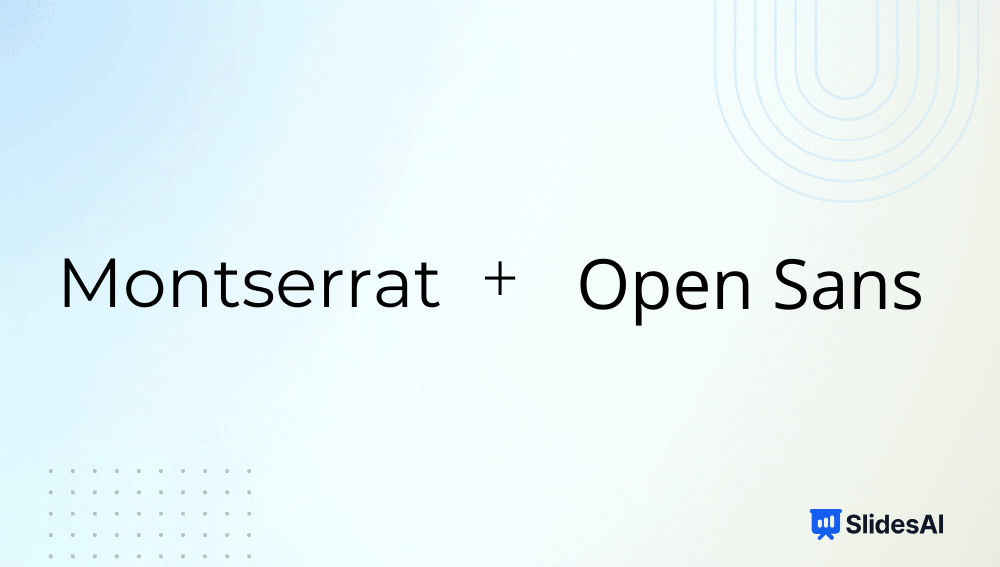
2. League Spartan + Lato: Confident headers with approachable body text.
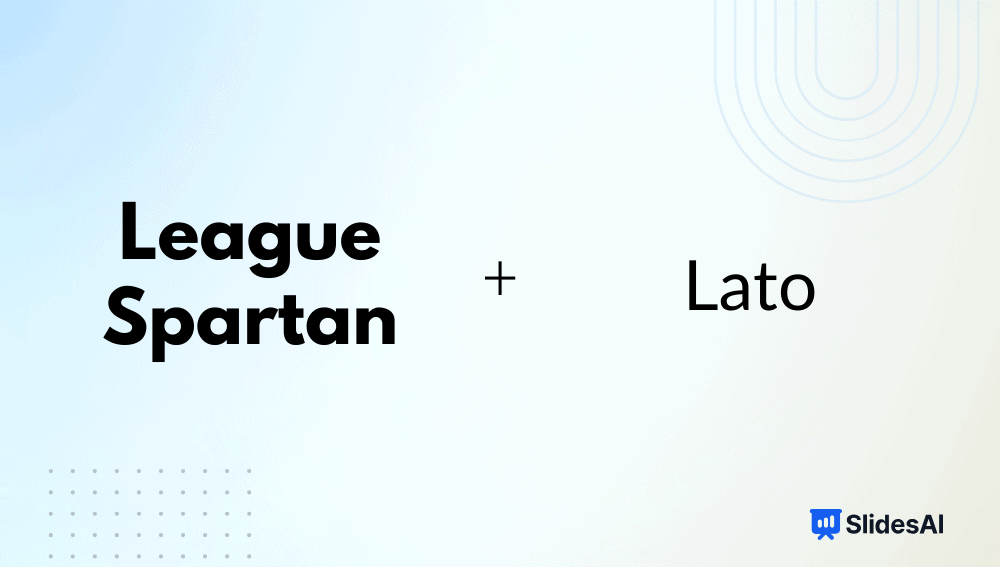
3. Archivo Black + Inter: Ideal for educational decks.
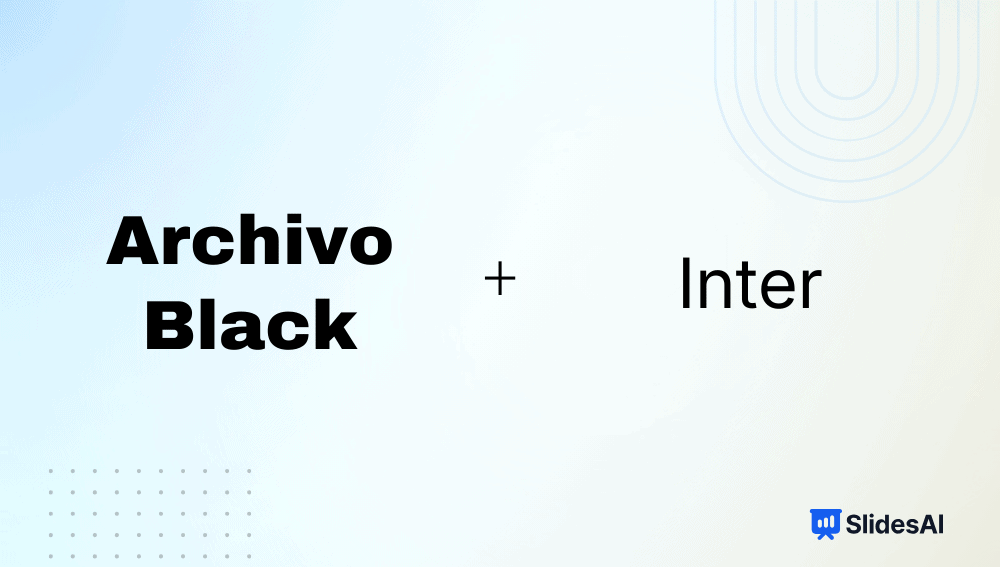
4. Playfair Display + Source Sans Pro: Great for creative and academic slides.
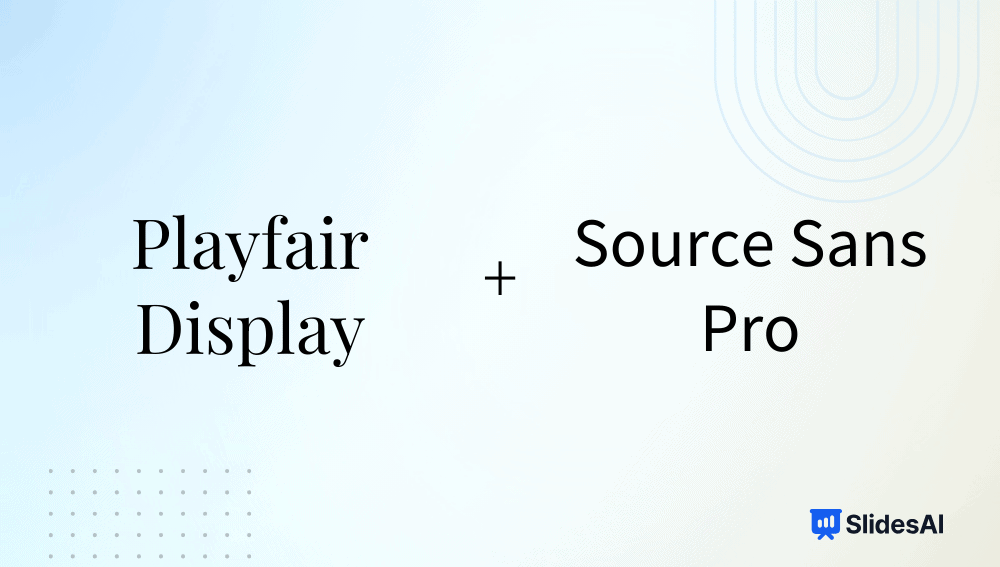
5. Poppins + Roboto: Modern and balanced for startups.
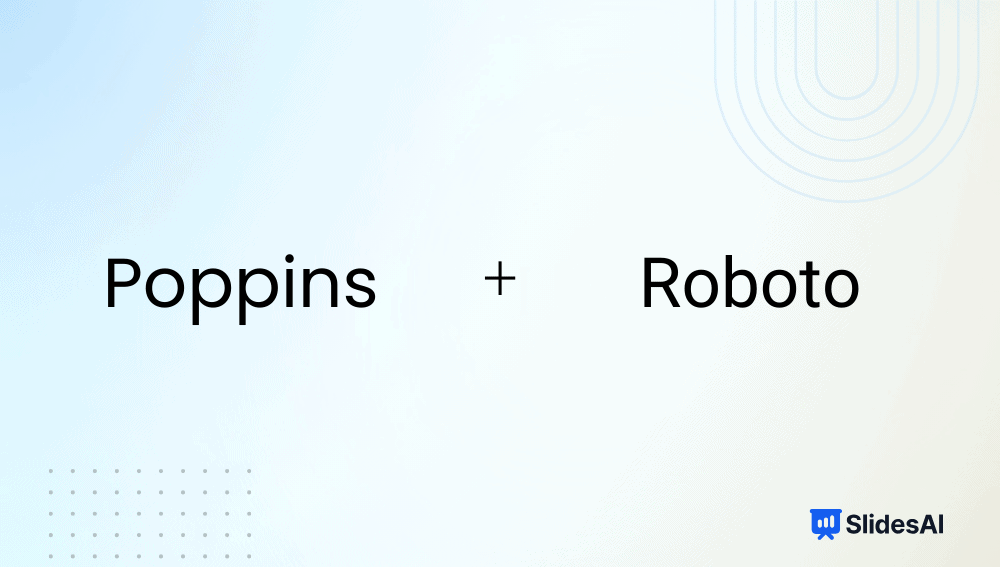
6. Franklin Gothic + Calibri: Corporate and reliable.
7. Raleway + Noto Sans: Elegant yet readable.
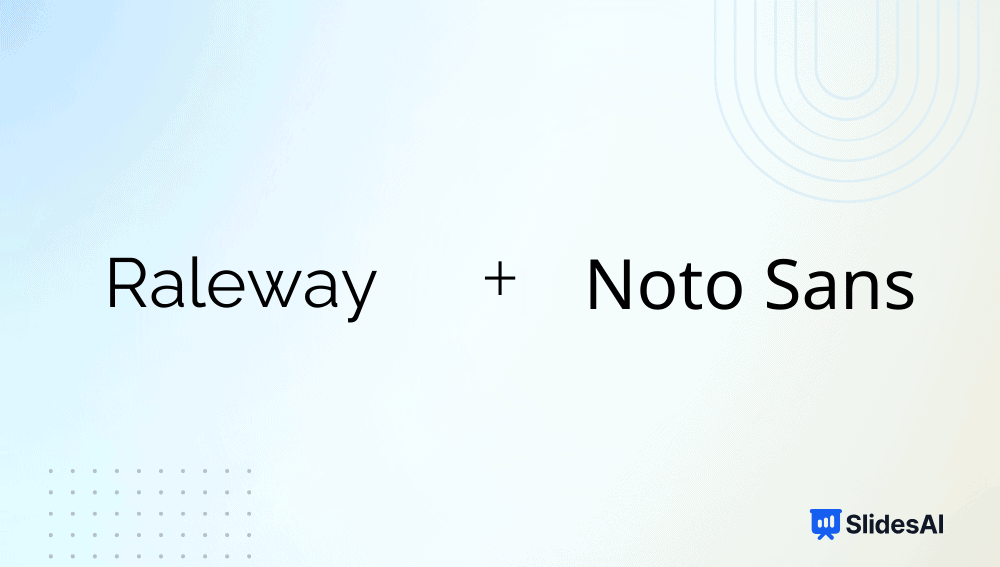
8. Helvetica + Georgia: Formal contrast between sans-serif and serif.
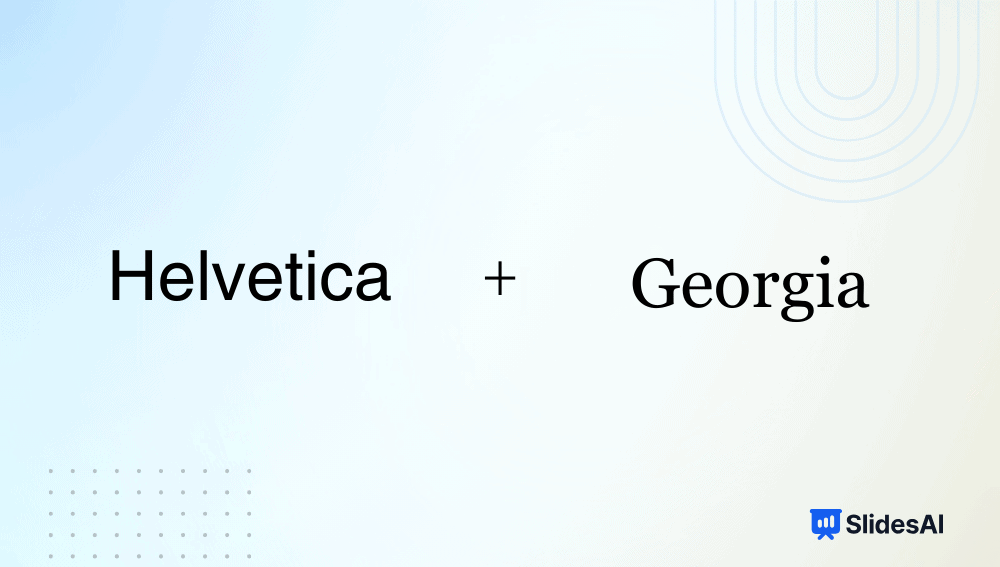
9. Avenir + Merriweather: Sleek yet warm for keynotes.
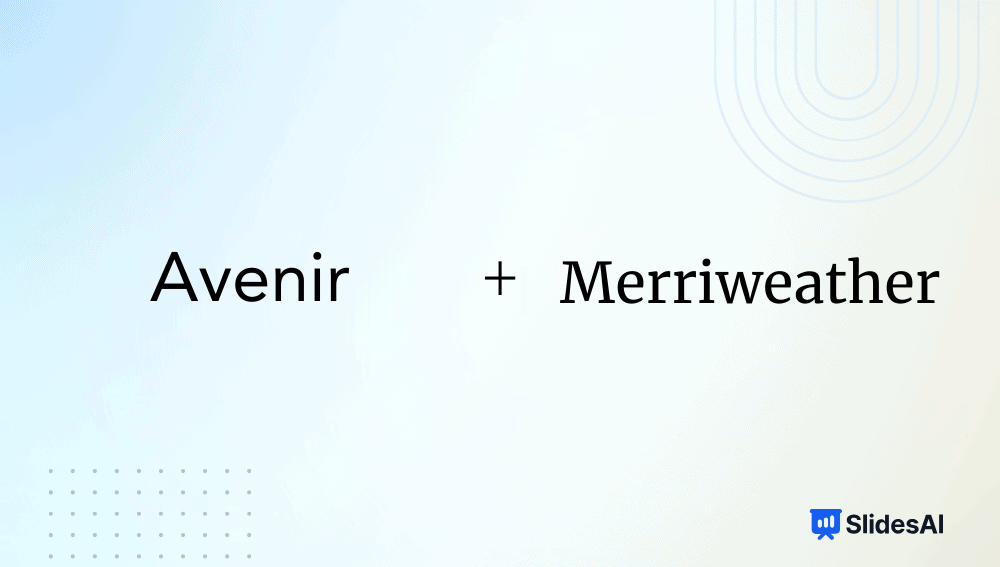
10. Libre Baskerville + Quicksand: Perfect blend of tradition and creativity.
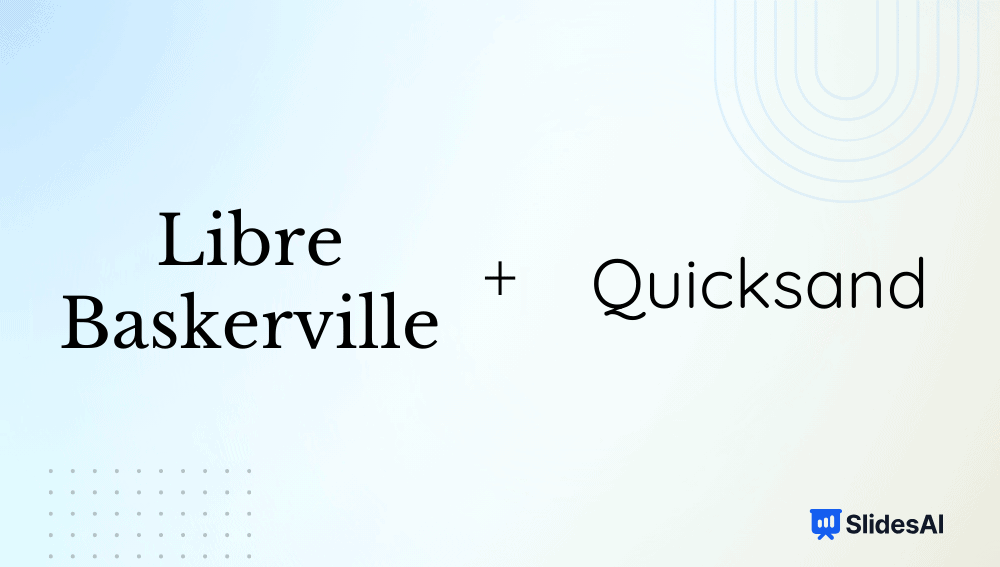
How to Add Fonts to PowerPoint?
- Step 1: Download the font you want to use from a trusted source (e.g., Google Fonts, DaFont, or Font Squirrel).
- Step 2: Unzip the downloaded file if it’s in a .zip folder.
- Step 3: Double-click the .ttf or .otf file and click Install (on Windows) or Install Font (on Mac).
- Step 4: Once installed, restart PowerPoint if it’s already open.
- Step 5: Open your presentation and go to the Home tab → Font dropdown.
- Step 6: Locate your newly added font in the list and apply it to your text.
(Tip: If you plan to share the presentation, choose “Embed fonts in the file” under File → Options → Save → Font Embedding to ensure others see it correctly.)
How to Add Fonts to Google Slides?
- Step 1: Open a presentation in Google Slides.
- Step 2: Click on the Font dropdown menu in the toolbar.
- Step 3: Select More Fonts at the top of the font list.
- Step 4: In the pop-up window, search or browse fonts by category, popularity, or language.
- Step 5: Click the font name(s) you want to add — they’ll appear in the “My Fonts” list on the right.
- Step 6: Click OK, and your new fonts will now appear in your main font menu.
(Note: Google Slides only supports fonts available in Google Fonts — you can’t install local fonts directly.)
How to Make the Right Font Choice for PowerPoint
To add value to your PPT, you need to pick the best font for presentation slides. Keep the following tips in mind when selecting a font for your slides:
- Understand the Font Types: Know the difference between serif, sans-serif, and display fonts.
- Pick Readable Sizes: Maintain at least 24pt for body text and 32-44pt for headings.
- Use Strategic Font Pairings: Create hierarchy without clutter.
- Ensure Strong Contrast: Light background? Use dark fonts, and vice versa.
- Keep Text Effects Minimal: Shadows or outlines should enhance, not distract.
- Limit to Two Fonts: Consistency improves design flow.
- Test on All Devices: Ensure your fonts display properly on shared files.
Best Fonts by Industry
Different industries demand different visual tones. Below are some of the best fonts for presentations for each of these industries:
- Technology & Startups: Montserrat, Roboto, Helvetica, Avenir, Poppins
- Finance & Legal: Georgia, Libre Baskerville, Merriweather, Lora
- Creative & Marketing: Raleway, League Spartan, Playfair Display, Poppins
- Healthcare & Education: Arial, Calibri, Lato, Open Sans, Inter, Nunito
- Corporate: Franklin Gothic, Helvetica, Arial, Calibri
- Academic & Research: Playfair Display, Inter, Georgia, Source Sans Pro
- Events & Nonprofits: Nunito, Quicksand, Lato, Open Sans
Save Time with SlidesAI
With SlidesAI, you don’t have to worry about font pairing or layout design. Its AI automatically selects the best font for presentation slides with modern fonts, aligns the text beautifully, and generates presentation slides in seconds, directly within Google Slides or PowerPoint. You focus on ideas; SlidesAI takes care of design.
Fonts may seem small, but they’re the foundation of every great presentation. The best fonts for presentations aren’t just about looks; they grab the audience’s attention, convey emotion, and build trust. Choose the best font for presentation that matches your purpose, keep readability front and center, and let SlidesAI help you craft beautiful slides effortlessly.
Create Presentations in Minutes With SlidesAI
- Start with a topic, text, notes, or PDF
- Generate slides in minutes
- Customize your presentation with ease
Frequently Asked Questions
1. What is Typeface?
A typeface is a family of fonts sharing common design features, like Arial or Times New Roman.
2. What Are the Different Types of Typefaces?
The main types are serif, sans-serif, display, and script.
3. What Is the Difference Between Typeface and Font?
A typeface is the overall design (e.g., Helvetica), while a font is a specific variation (Helvetica Bold 16pt).
4. Which Fonts Should You Avoid in Professional Presentations?
Avoid Comic Sans, Papyrus, and overly decorative or script fonts that reduce clarity.
5. What Are the Best Fonts for Presentation Headings?
Montserrat, League Spartan, Archivo Black, and Franklin Gothic are excellent choices.